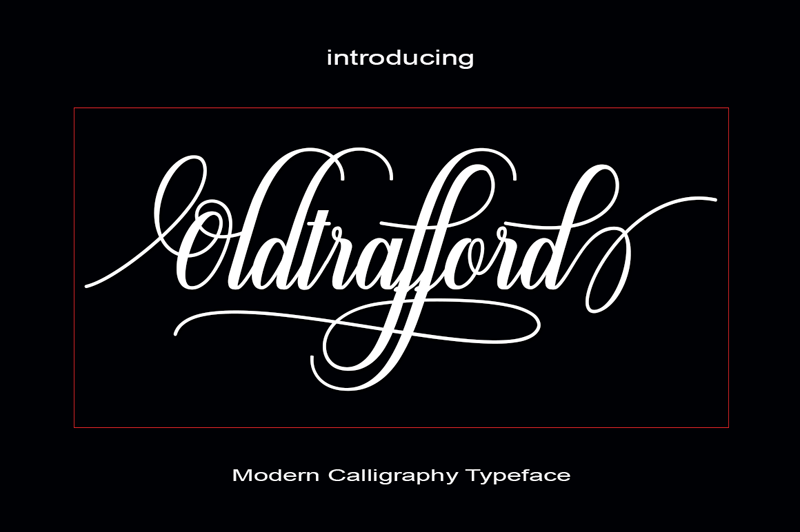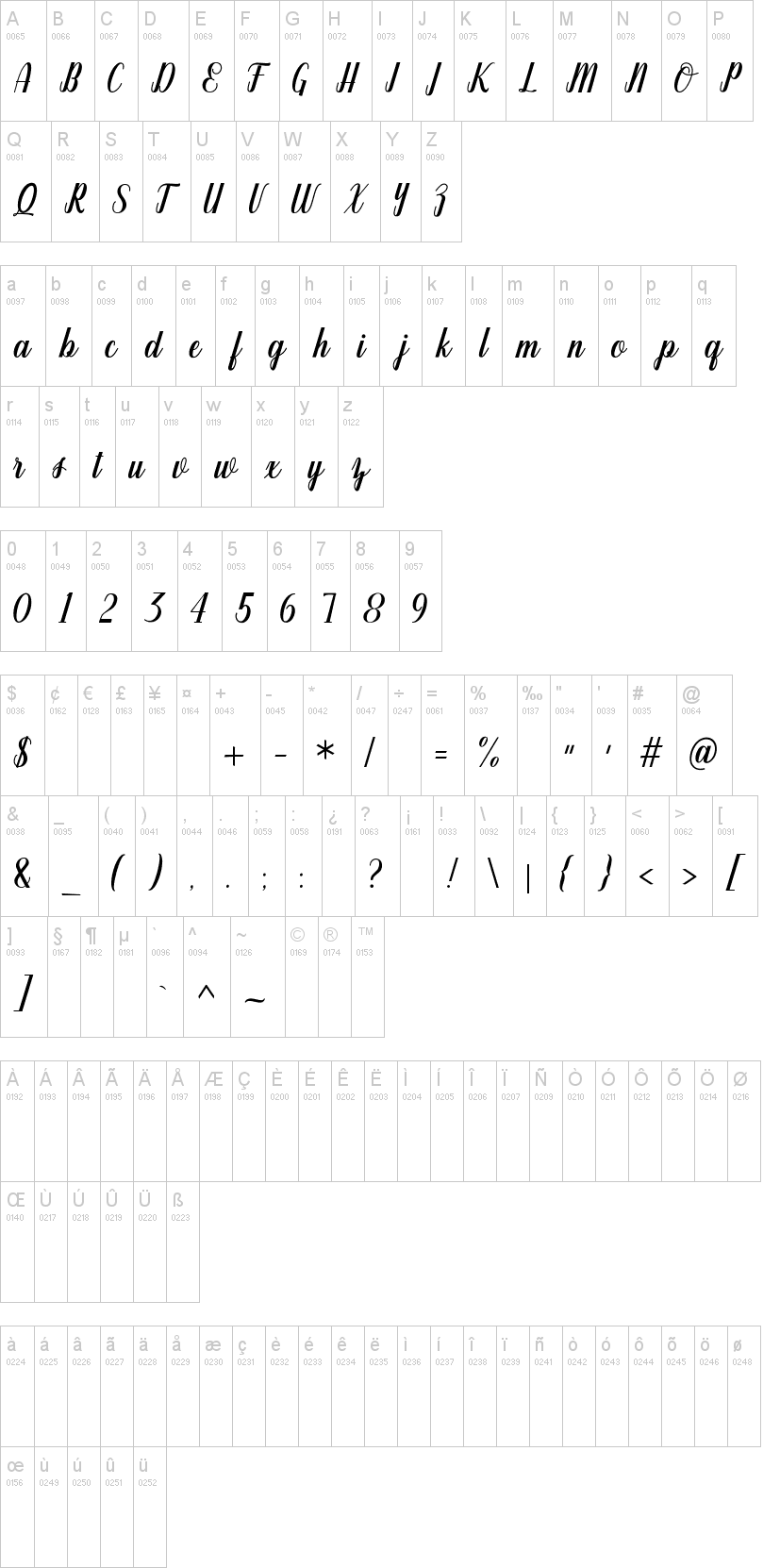
Oldtrafford
Note of the authorOldtrafford is modern script font, every single letters have been carefully crafted to make your text looks beautiful. With modern script style this font will perfect for many different project ex: quotes, blog header, poster, wedding, branding, logo, fashion, apparel, letter, invitation, stationery, etc.